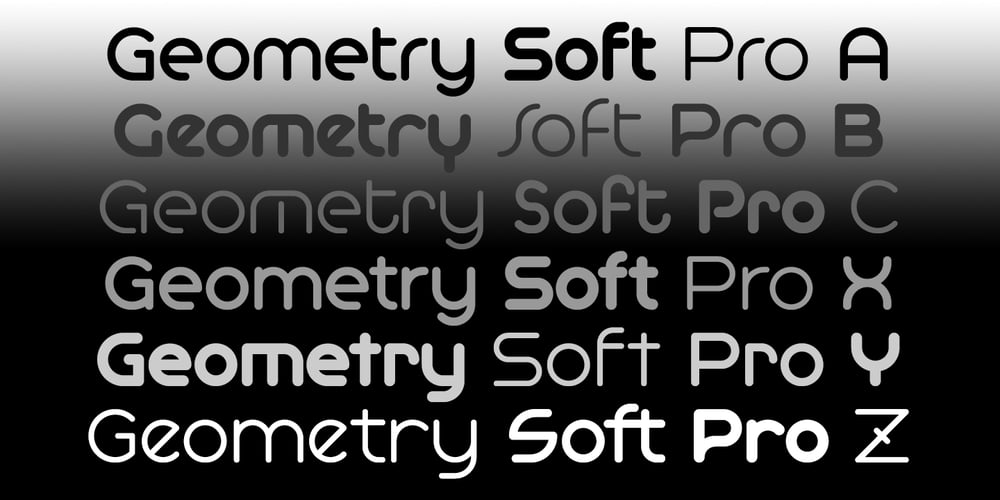
Geometry Soft Pro
Geometry Soft Pro font
Geometry Soft Pro Font Family was designed by Roger S. Nelsson and published by CheapProFonts. Geometry Soft Pro contains 19 styles and family package options. The Geometry Pro family has been designed to be the final word in purely geometric fonts, and this rounded “Soft” sub-family is the ultimate web 2.0 style font collection. Even though it is strictly geometric (as drawn with a compass and a ruler fixed to 90 and 45 degree angles) it is not slavishly modular: letters have differing widths, and the sidebearings, spacing and kerning has been finely adjusted to create smooth text. The Soft family contains three weights each with 6 variants: A is the basic form and the starting point B has more dynamic and modern shapes C has open and swirly shapes X is the serious text version Y has a very horizontal look Z is a collection of all the remaining more funky shapes Mix and match to your heart’s desire! Please enjoy the free “Bold N” version – this “notched” variant lets you test out the quality of the outlines and the language support. ALL fonts from CheapProFonts have very extensive language support: They contain some unusual diacritic letters (some of which are contained in the Latin Extended-B Unicode block) supporting: Cornish, Filipino (Tagalog), Guarani, Luxembourgian, Malagasy, Romanian, Ulithian and Welsh. They also contain all glyphs in the Latin Extended-A Unicode block (which among others cover the Central European and Baltic areas) supporting: Afrikaans, Belarusian (Lacinka), Bosnian, Catalan, Chichewa, Croatian, Czech, Dutch, Esperanto, Greenlandic, Hungarian, Kashubian, Kurdish (Kurmanji), Latvian, Lithuanian, Maltese, Maori, Polish, Saami (Inari), Saami (North), Serbian (latin), Slovak(ian), Slovene, Sorbian (Lower), Sorbian (Upper), Turkish and Turkmen. And they of course contain all the usual “western” glyphs supporting: Albanian, Basque, Breton, Chamorro, Danish, Estonian, Faroese, Finnish, French, Frisian, Galican, German, Icelandic, Indonesian, Irish (Gaelic), Italian, Northern Sotho, Norwegian, Occitan, Portuguese, Rhaeto-Romance, Sami (Lule), Sami (South), Scots (Gaelic), Spanish, Swedish, Tswana, Walloon and Yapese.